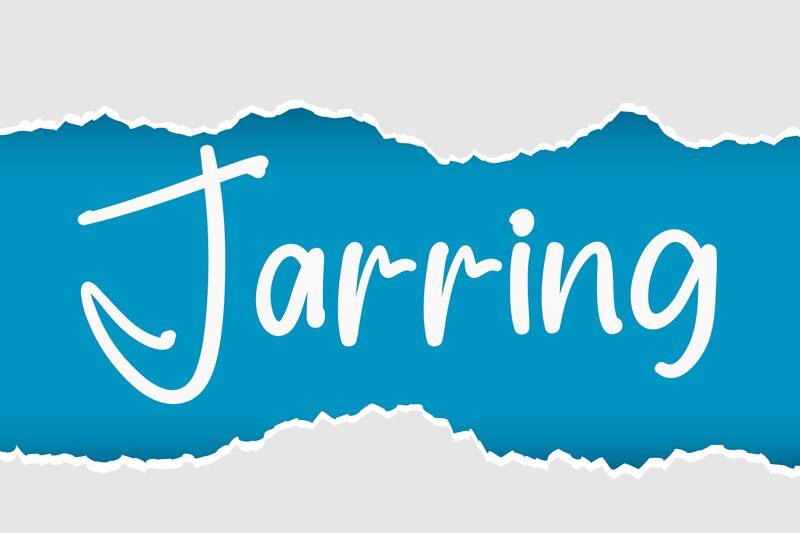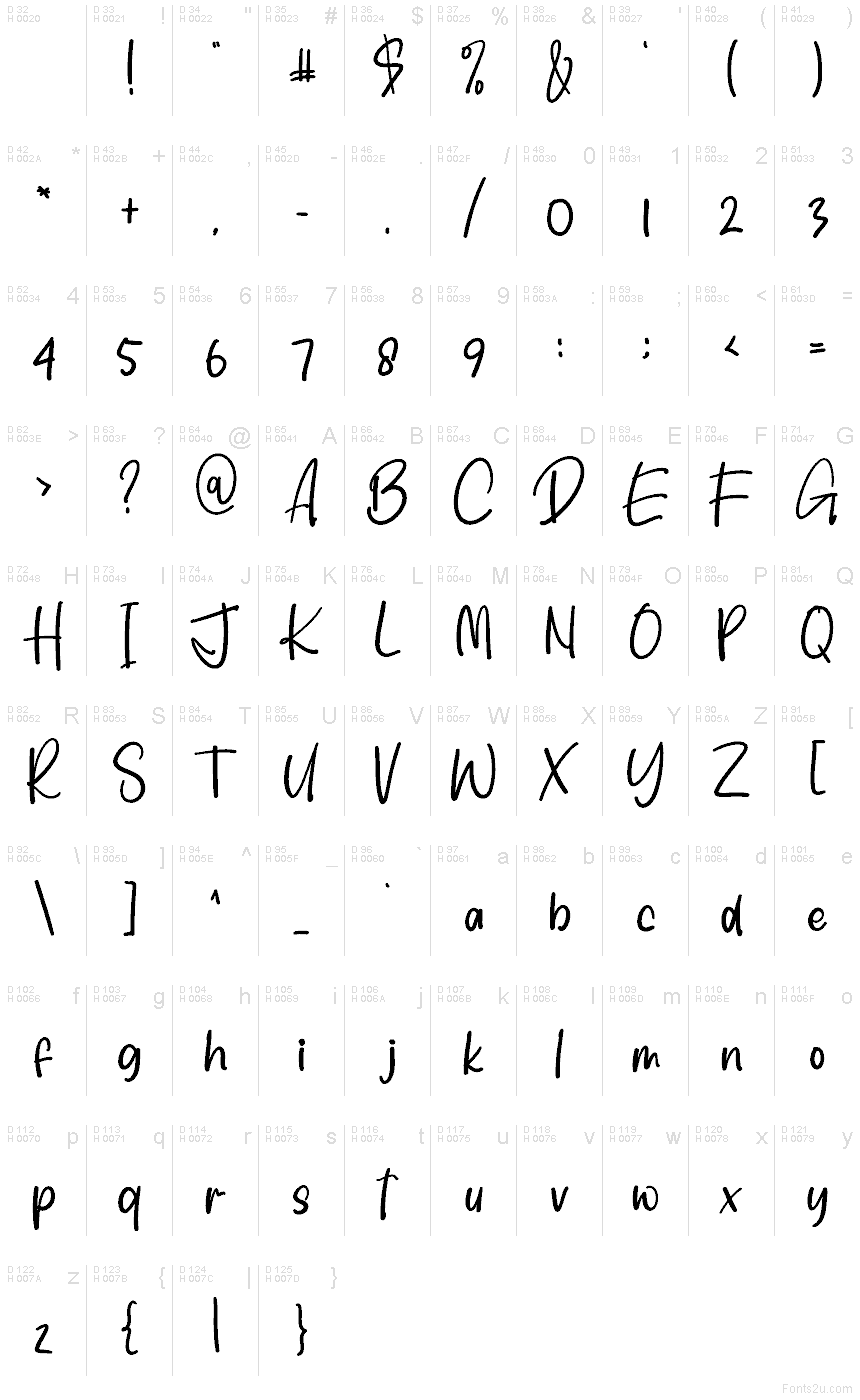
Jarring
Jarring font by Creatype Designer is a free handwritten font that captures an organic flow with an expressive feel. The casual, relaxed mood is consistently present within every character and through every text inserted in the setting whether it’s decorative or body text.
Let your presentations be different and exciting with Jarring font! Use it for app designs, social media ads, greeting cards, notebooks, online posts, texts on banners or packages.
This font retains a classy calligraphic influence while feeling contemporary and fresh. Its versatility will inspire a wide range of creative ideas, from letterheads and titles to stationery.